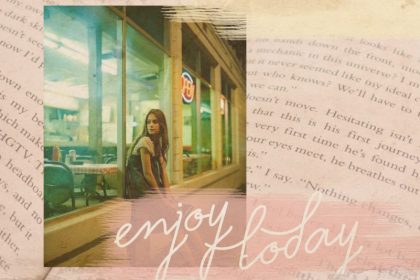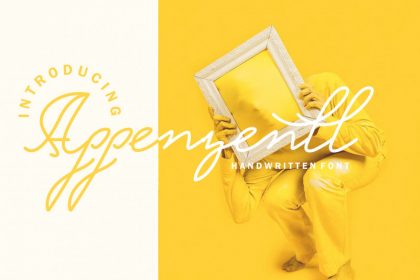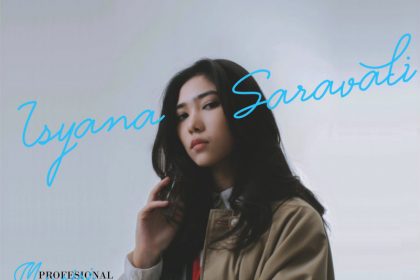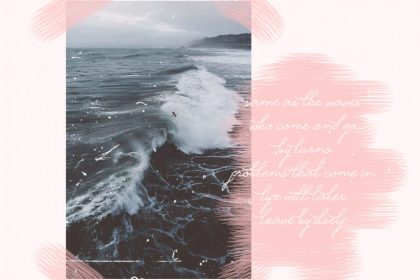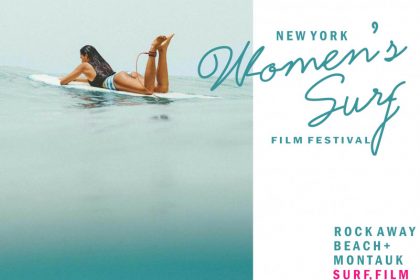
Appenzell Free Script Font
Appenzell is a fun and cool handwritten font with a unique flavor. Use it to turn any design project into a true standout!